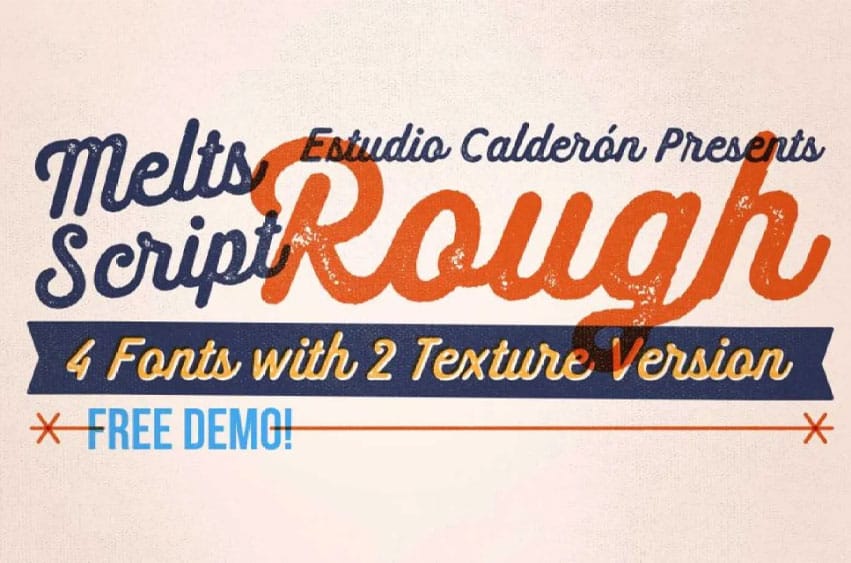
Melts Script Rough Font Kick off your new day and amaze your friends with a great display font!
Estudio Calderon has worked on a project to develop textures of Melts Script for maximum visibility and they have published Melts Script Rough for this purpose.
Smooth texture design in high-definition that can be applied to the sizes as well as the concepts – this is great! The free version of the font is called “Melts script Rough Sanscript One. ”